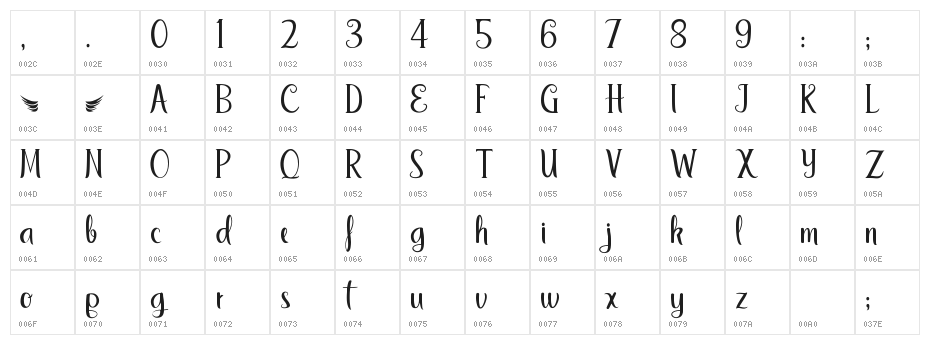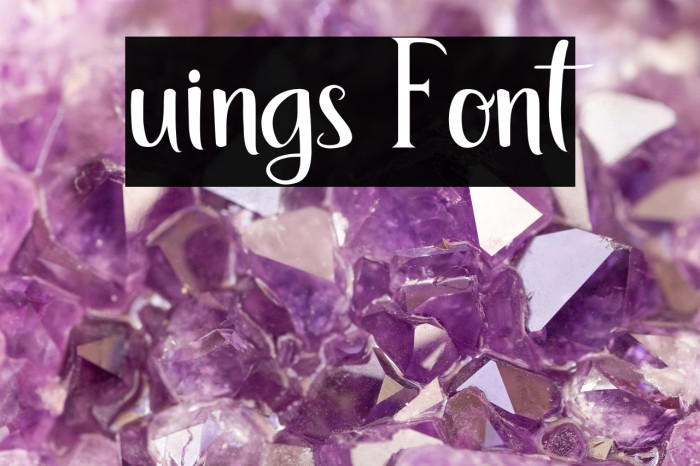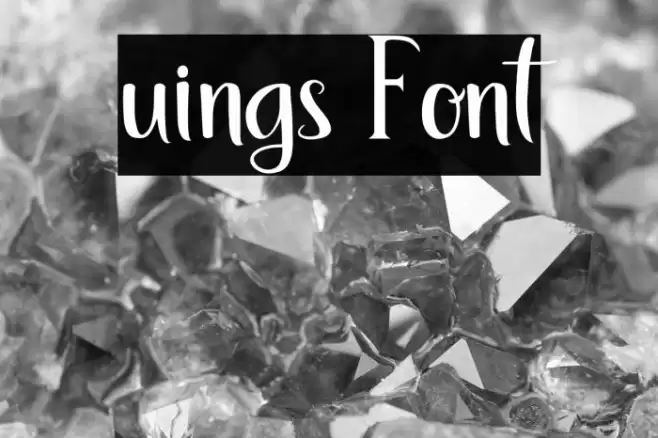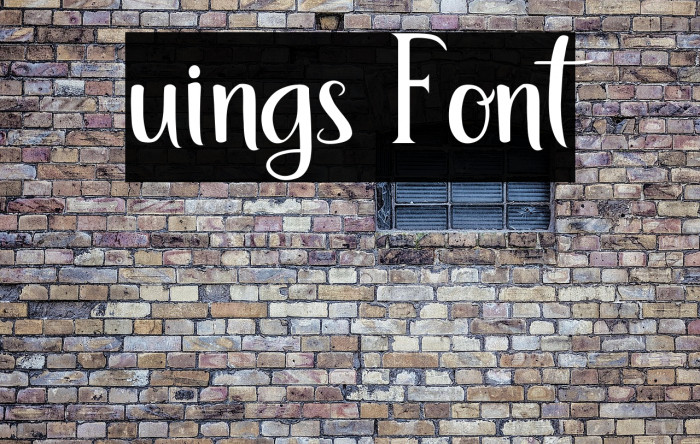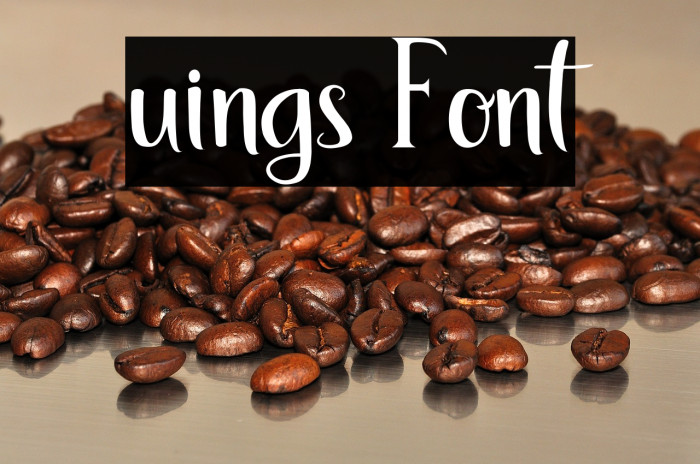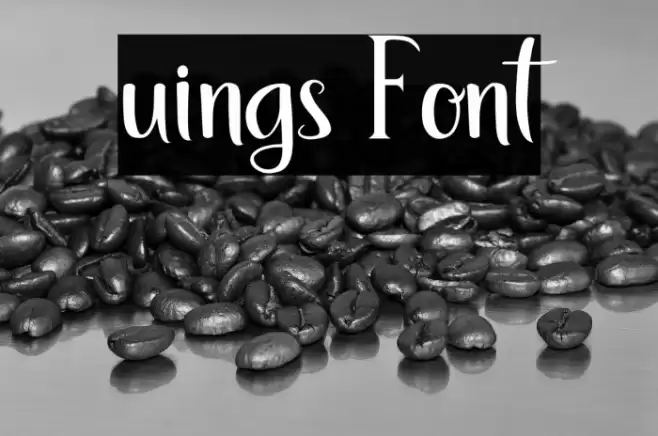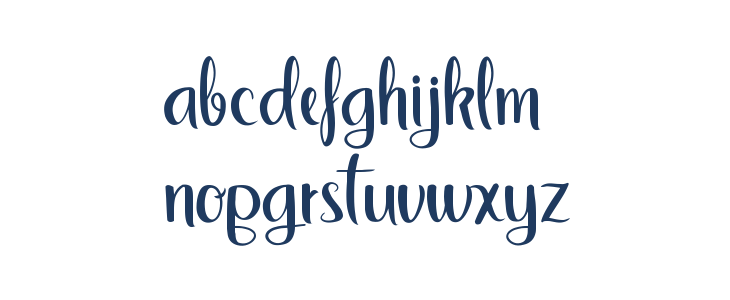
uings Font
uings Description
This font features a unique blend of elegance and playfulness, characterized by its flowing, cursive-like strokes and slightly whimsical design. The uppercase letters exhibit a tall and narrow form with subtle curves, while the lowercase letters maintain a consistent style with rounded edges and smooth transitions. The numerals are distinct and easy to read, complementing the overall aesthetic. Special characters are creatively designed, adding a touch of flair. This font's artistic nature makes it suitable for creative and expressive projects.
| Use Case | Headlines, Logos, Artistic projects |
| Proposed Projects | Ideal for invitations, greeting cards, branding, and artistic projects that require a touch of elegance and creativity. |